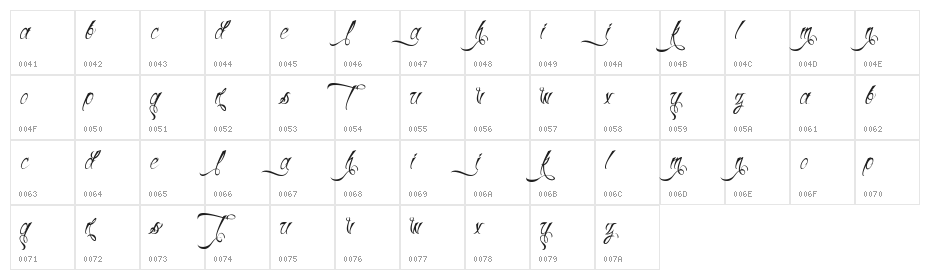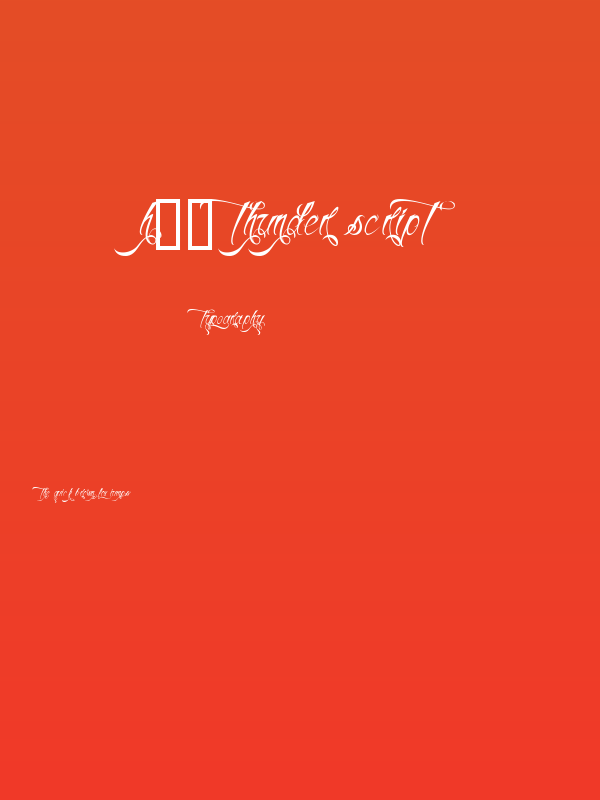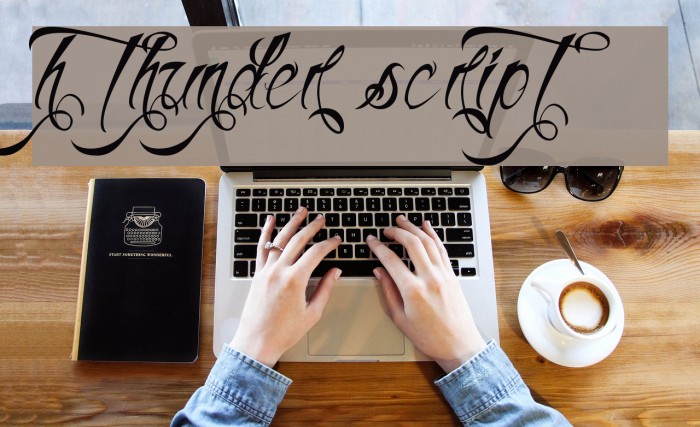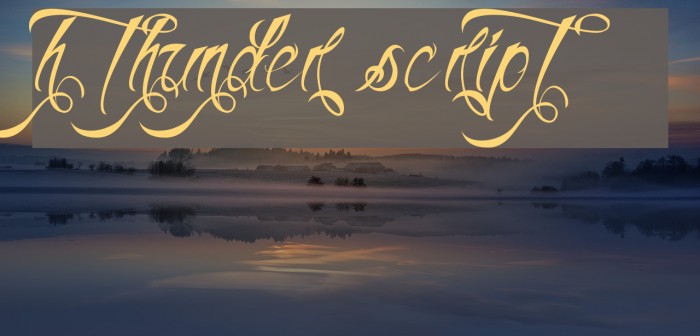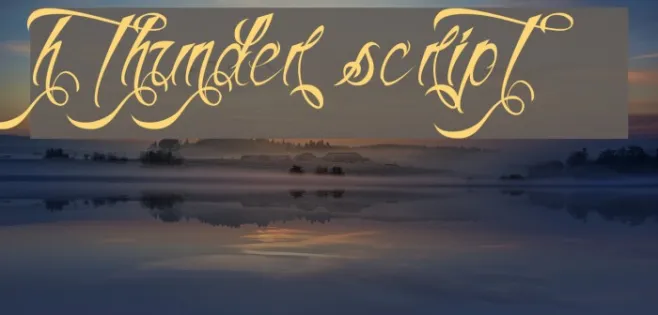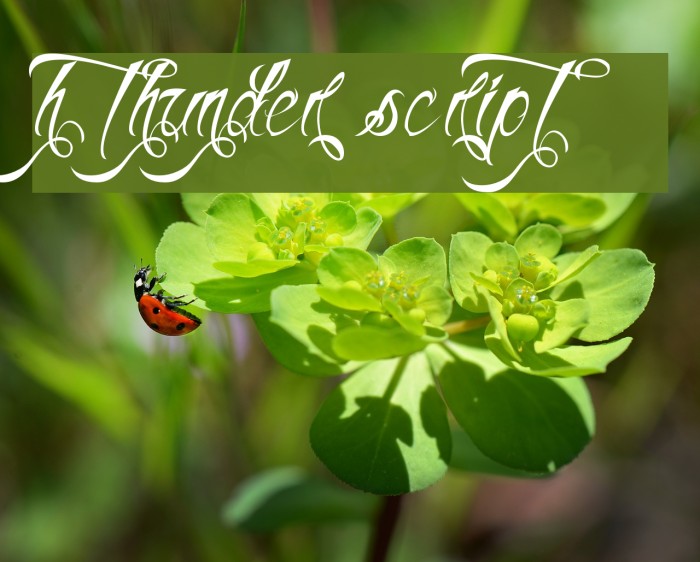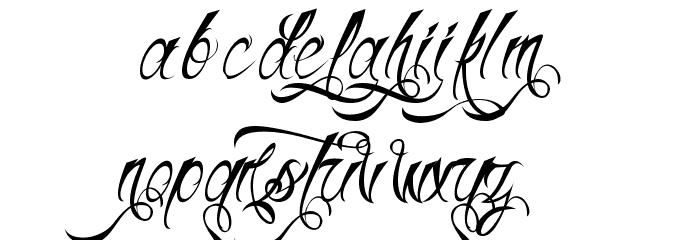
H74 Thunder Script Font
H74 Thunder Script Description
This font exudes elegance and sophistication with its intricate script style. The characters are adorned with elaborate swirls and flourishes, creating a sense of movement and grace. Each letter is carefully crafted, showcasing a high level of detail and artistry. The font's ornate design makes it ideal for projects that require a touch of luxury and refinement. Its flowing lines and decorative elements evoke a sense of classic beauty, reminiscent of calligraphy. This font is perfect for invitations, branding, and any design that seeks to convey elegance and style.
| Use Case | Invitations, Branding, Decorative Headlines |
| Proposed Projects | Ideal for wedding invitations, luxury branding, elegant stationery, and decorative headlines. |